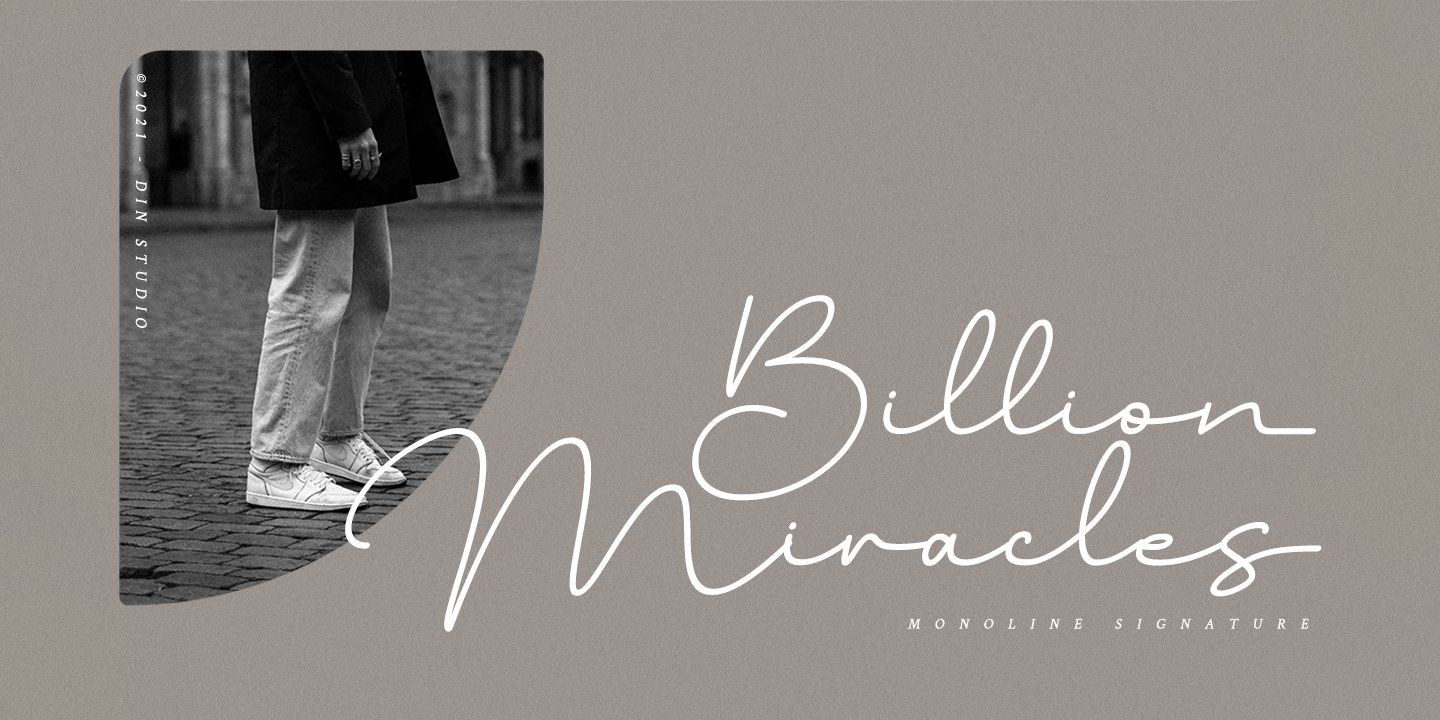
Billion Miracles Font Free Download is a graceful and inspiring handwritten script font that radiates warmth, optimism, and creativity. Please note: you must purchase a license for commercial use — this font is available as a free download solely for testing and personal projects.
This font is perfect for motivational quotes, greeting cards, wedding invitations, personal branding, lifestyle blogs, and social media campaigns. Wherever you want to inspire hope and positivity, Billion Miracles Font Free Download shines brightly.
What makes this font so exciting is its smooth, flowing strokes combined with charming, natural curves that mimic genuine handwriting. It adds a heartfelt and authentic touch, making your messages feel personal and uplifting.
The Billion Miracles font family includes styles such as Regular, Bold, Italic, and Swash versions, providing flexibility to create dynamic and expressive typography that suits any mood.